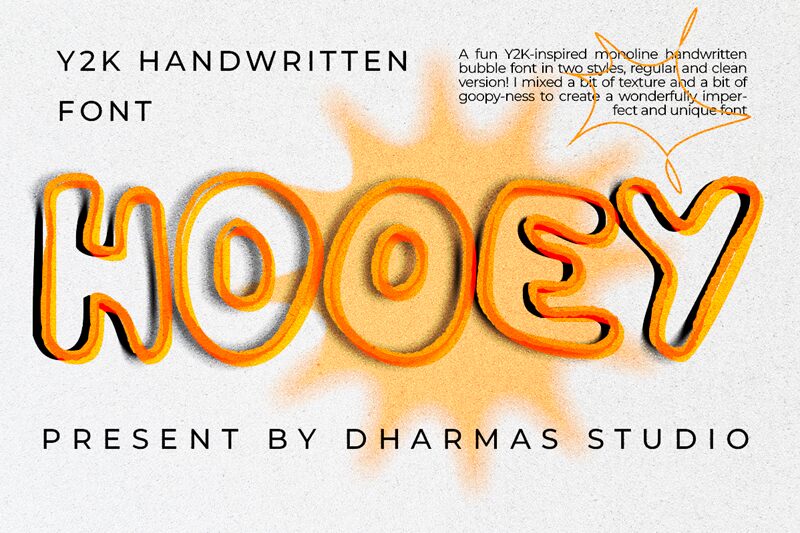
Hooey erupts with playful exuberance, a font that encapsulates the quirky spirit of Y2K aesthetics through its cartoonish allure. Designed by Dharmas Studio, Hooey stands out as a semi-light display typeface, crafted to inject a dose of fun into any creative endeavor. Its monoline handwritten bubble style comes in two distinct versions—regular and clean—each brimming with personality and an endearing goopy texture.
With its unique alternative characters featuring two sets of uppercase and lowercase letters, Hooey offers designers the freedom to mix and match for that perfect handmade touch. Ideal for projects that demand a splash of whimsy—from logos and headlines to art, branding, or quotes—this font is your go-to choice when you're looking to leave an impression that's as entertaining as it is memorable. Step into a world where every stroke conveys delight; let Hooey be the voice of your most vibrant ideas.